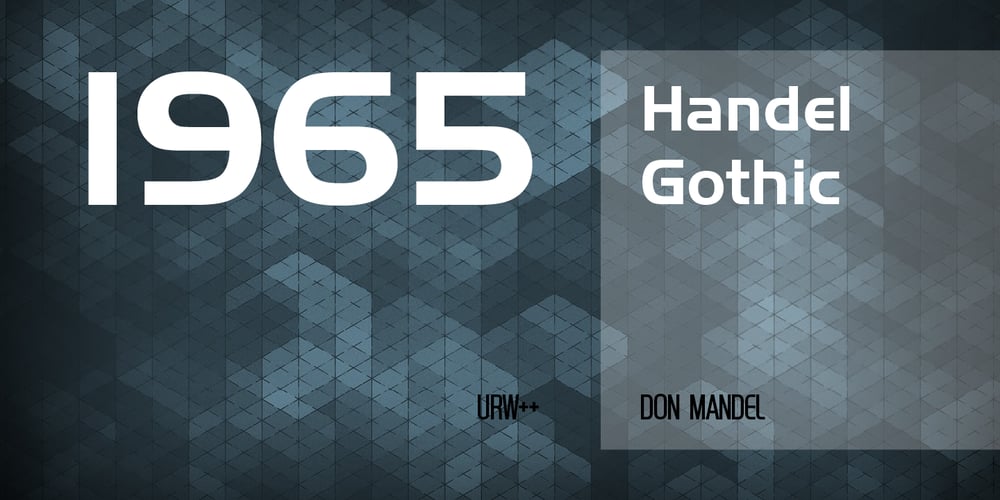
Handel Gothic
Handel Gothic font
Handel Gothic Font Family was designed by Phil Martin, Don Mandel and published by URW Type Foundry. Handel Gothic contains 7 styles and family package options. The Handel Gothic? typeface has been a mainstay of graphic communication for over 40 years – all the while looking as current as tomorrow. Designed by Don Handel in the mid-1960s, and used in the 1973 United Airlines logo developed by Saul Bass, Handel Gothic was an instant success when released to the graphic design community. Its generous lowercase x-height, full-bodied counters and square proportions make the design highly readable at a wide range of sizes. Handel Gothic’s slightly idiosyncratic character shapes gave the face a futuristic look 40 years ago that retains its power today. In addition, its Uncial-like lowercase is instantly identifiable – and unique among sans serif typestyles.